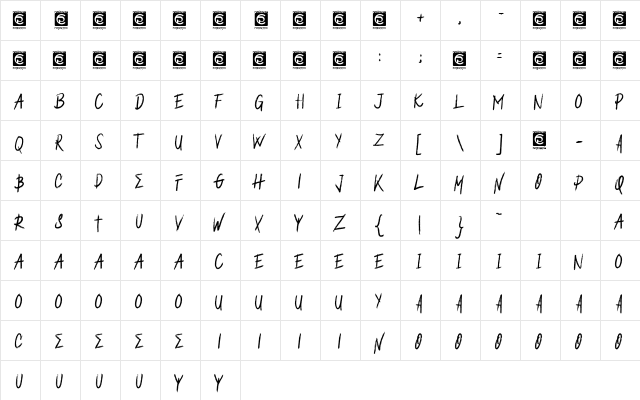
| Foundry | Putracetol Studio |
| Designer | Putra Novembria Candra Kusuma |
Design Context for ROUGHER Typeface
ROUGHER trades polish for personality, using distressed and eroded forms to bring grit and attitude to creative work.
Suited to punk-influenced zines, underground music branding, streetwear, and raw, anti-corporate design.
Pro Tip: Pair ROUGHER with intentionally raw or lo-fi design elements. Fighting against it with overly polished surroundings will undermine its personality.